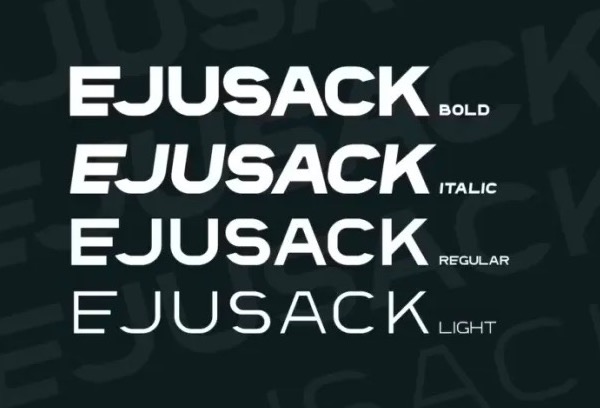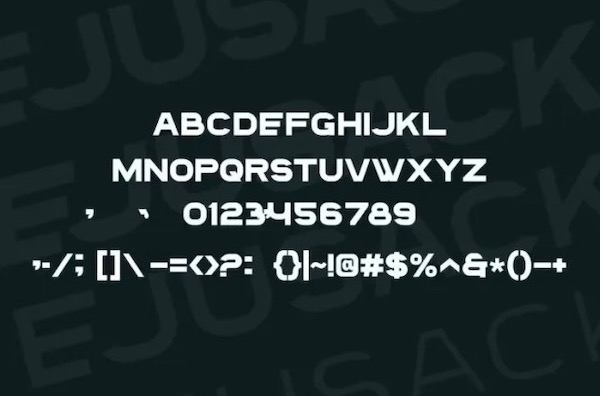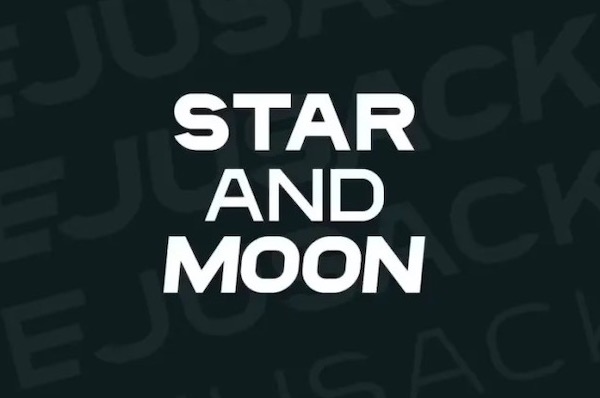
Ejusack sans serif is an elegant and authentic display font. This font is suitable for any branding projects such as logos, t-shirt printing, e-sports and many more. It is extraordinary in many contexts.
Ejusack Display Font